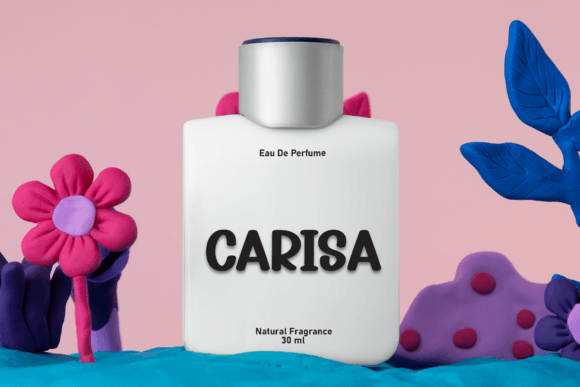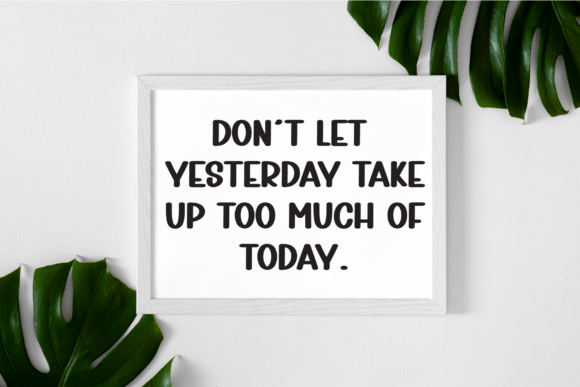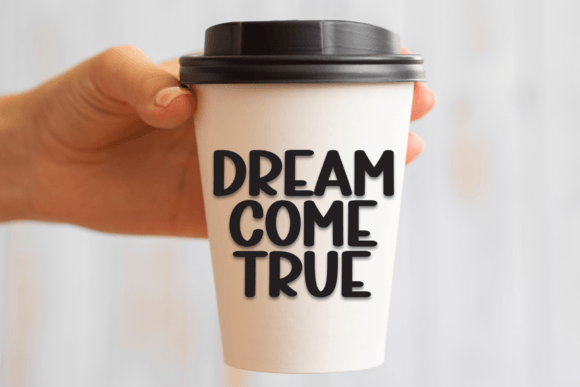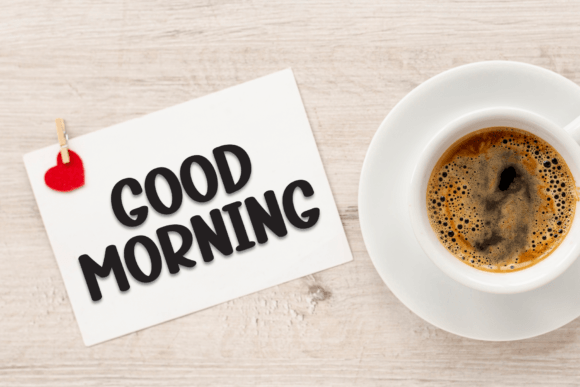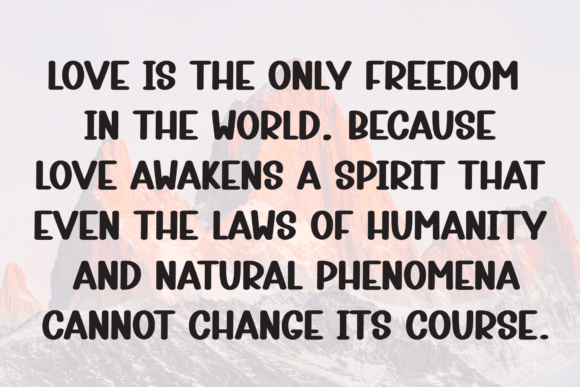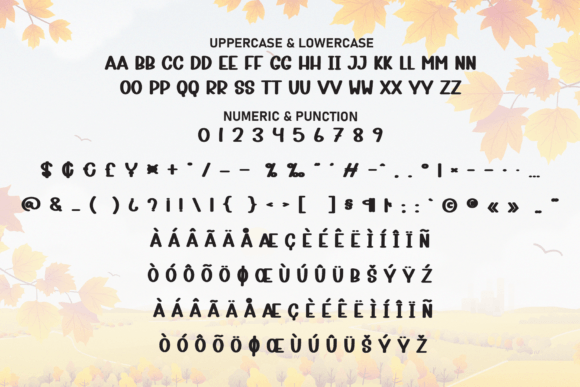
Introducing Autumn Cartoon Font: Add a Playful Touch to Your Designs
Are you looking for a font that can bring a cheerful and lighthearted feel to your designs? Look no further than Autumn Cartoon Font! This playful and fun handmade display font is perfect for adding a touch of whimsy to your projects. With its bold and round letters, Autumn Cartoon Font is ideal for kids’ projects, cartoons, and any creative work that needs a playful vibe.
What Makes Autumn Cartoon Font Special?
Autumn Cartoon Font is a unique and handmade display font that is designed to bring a sense of fun and playfulness to your designs. Its bold and round letters are carefully crafted to create a cheerful and approachable feel that is perfect for a variety of projects. Whether you’re working on a kids’ project, a cartoon, or any other creative work, Autumn Cartoon Font is the perfect choice.
Key Features of Autumn Cartoon Font
- Playful and Fun Design: Autumn Cartoon Font is designed to be playful and fun, making it perfect for projects that require a lighthearted feel.
- Handmade Display Font: This font is carefully handcrafted to ensure that every letter is unique and full of character.
- Bold and Round Letters: The bold and round letters of Autumn Cartoon Font make it perfect for adding a cheerful touch to your designs.
- Perfect for Kids’ Projects: The playful design of Autumn Cartoon Font makes it ideal for kids’ projects, such as children’s books, educational materials, and more.
- Ideal for Cartoons and Creative Works: Autumn Cartoon Font is also perfect for cartoons and other creative works that require a lighthearted feel.
Uses for Autumn Cartoon Font
Autumn Cartoon Font is a versatile font that can be used in a variety of projects, including:
- Kids’ Projects: Use Autumn Cartoon Font to add a playful touch to kids’ projects, such as children’s books, educational materials, and more.
- Cartoons and Animations: Autumn Cartoon Font is perfect for cartoons and animations that require a lighthearted feel.
- Signs and Posters: Use Autumn Cartoon Font to create eye-catching signs and posters that are sure to grab attention.
- Social Media Graphics: Autumn Cartoon Font is also perfect for social media graphics, such as Facebook posts, Instagram stories, and more.
- Branding and Packaging: Use Autumn Cartoon Font to add a playful touch to your branding and packaging materials.
Tips for Using Autumn Cartoon Font
Here are a few tips for using Autumn Cartoon Font in your designs:
- Use it in Large Sizes: Autumn Cartoon Font is designed to be used in large sizes, so don’t be afraid to use it in headlines and titles.
- Experiment with Colors: Autumn Cartoon Font looks great in a variety of colors, so experiment with different colors to find the one that works best for your design.
- Pair it with Other Fonts: Autumn Cartoon Font can be paired with other fonts to create a unique and interesting look.
Autumn Cartoon Font is a playful and fun handmade display font that is perfect for adding a cheerful touch to your designs. With its bold and round letters, Autumn Cartoon Font is ideal for kids’ projects, cartoons, and any creative work that needs a lighthearted feel. Whether you’re a designer, crafter, or DIY enthusiast, Autumn Cartoon Font is a great addition to your font collection.